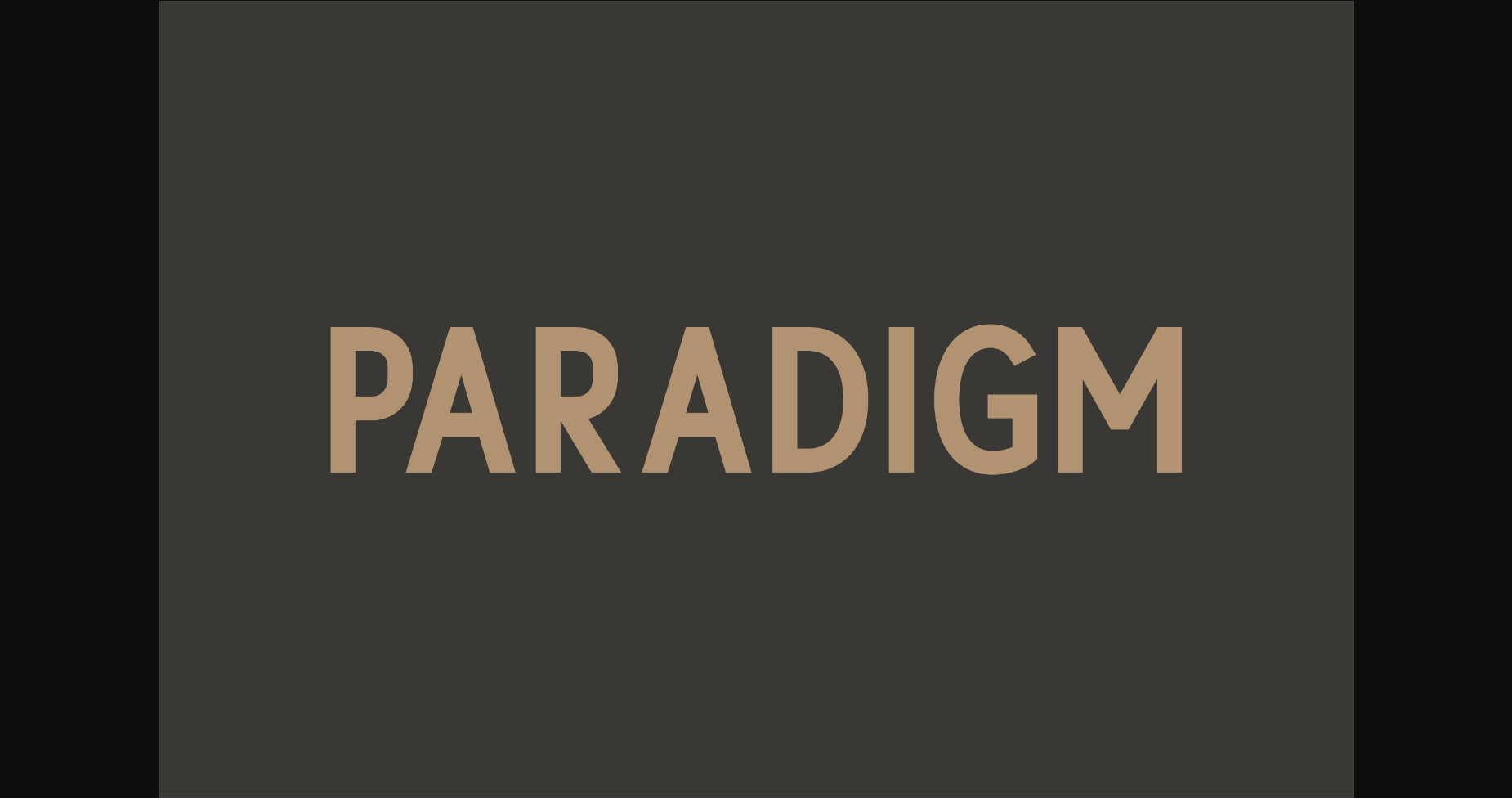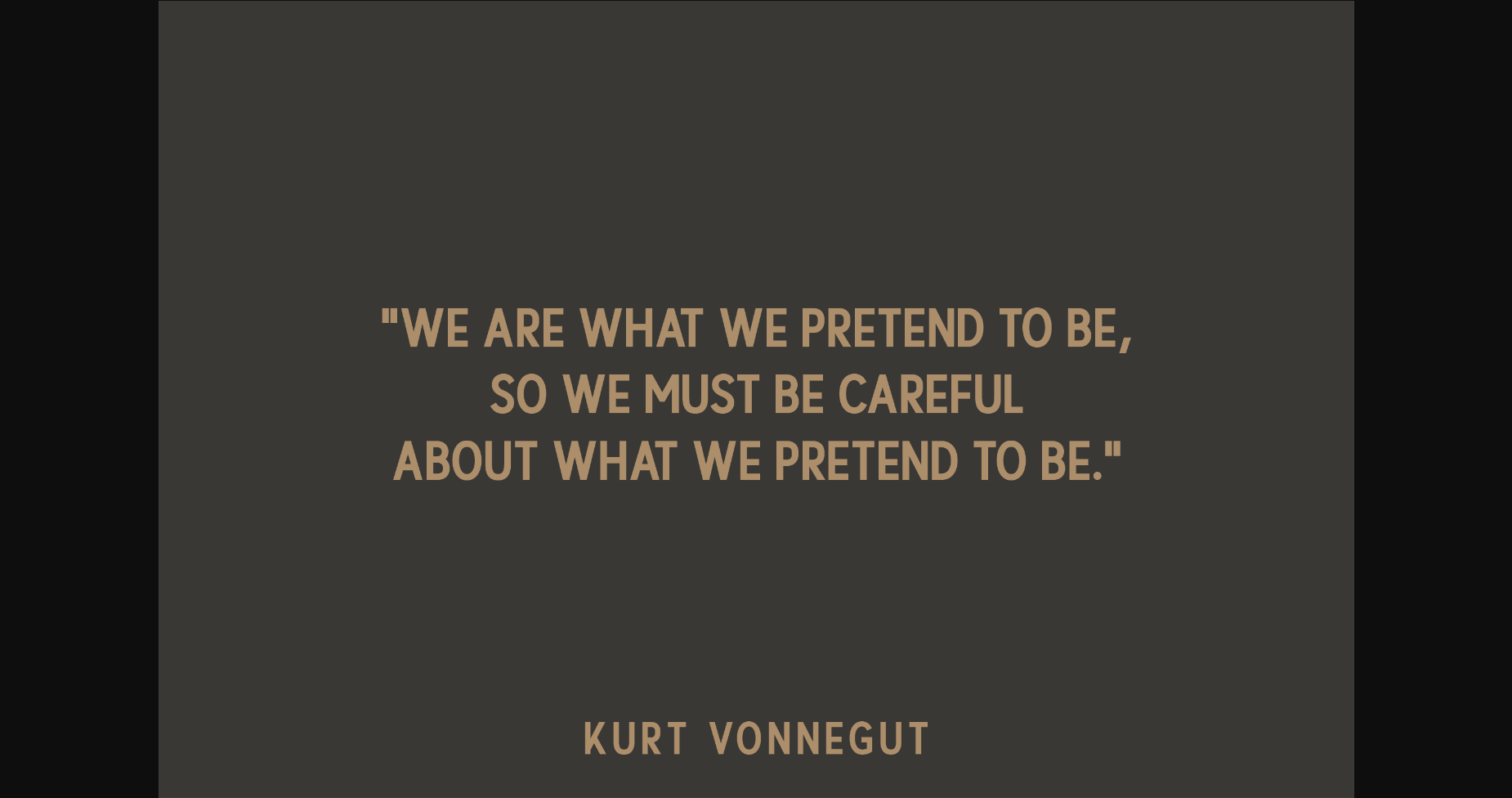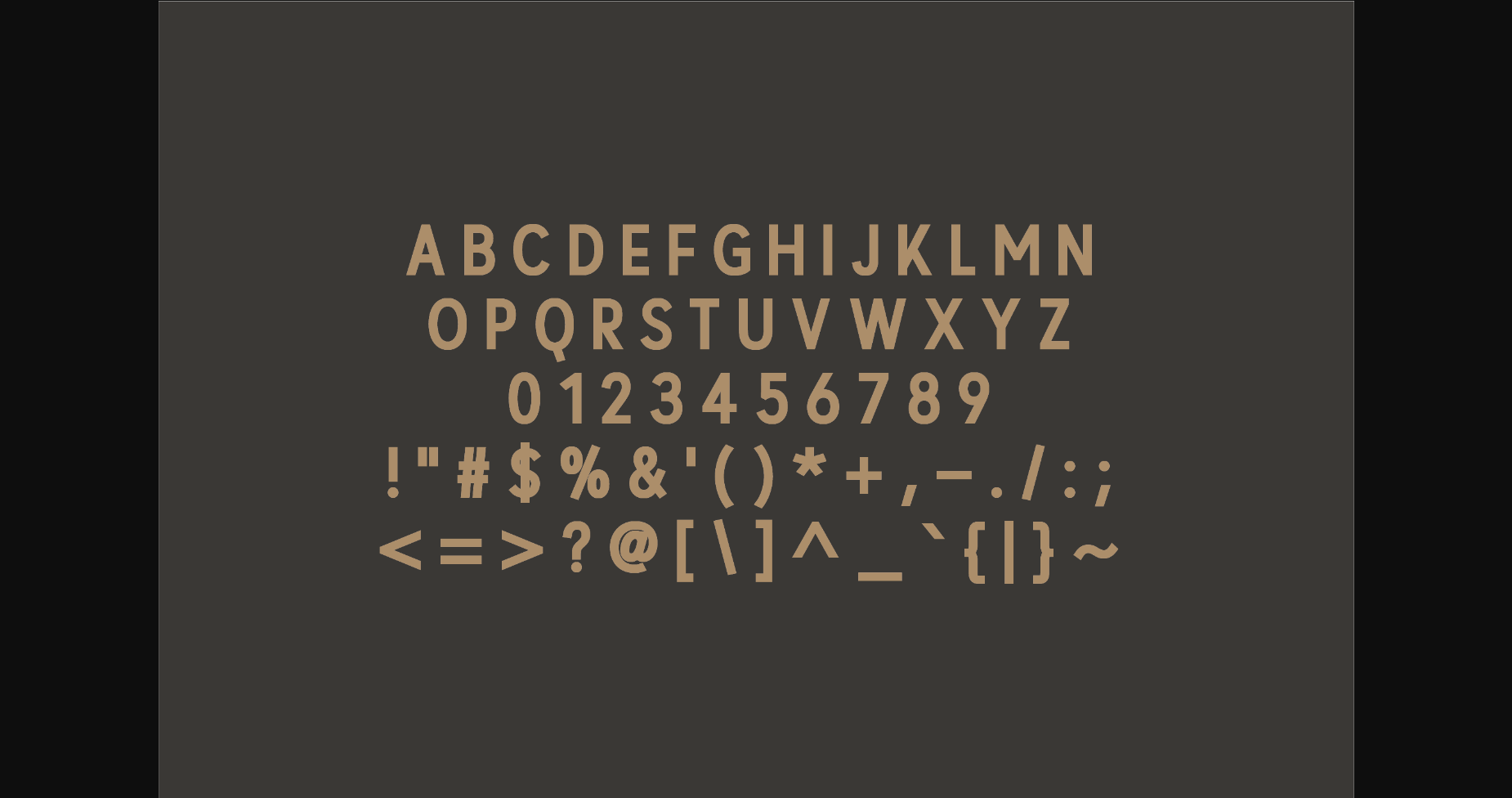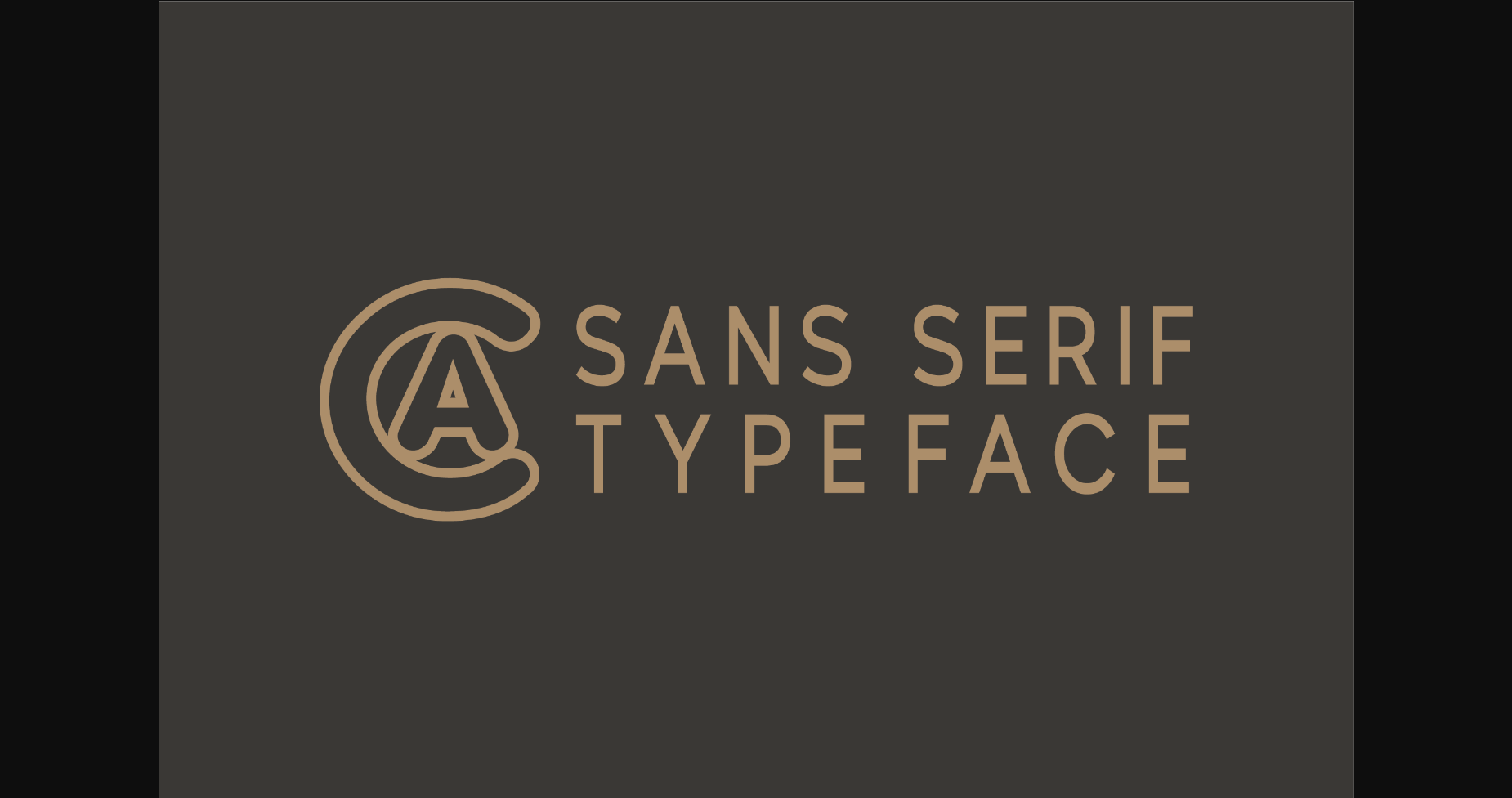
Paradigm Font
About Paradigm Font
Paradigm is a versatile, modern, and classy sans serif font perfect for logos, weddings, invitations, quotes, advertisements, print, magazines, and more. Add it to your most creative ideas, and notice how it makes them come alive!